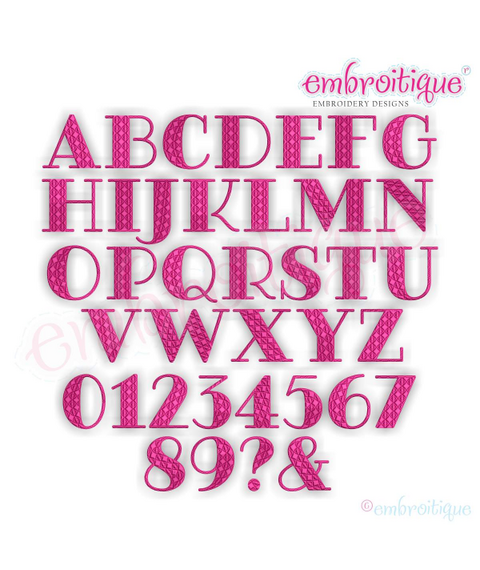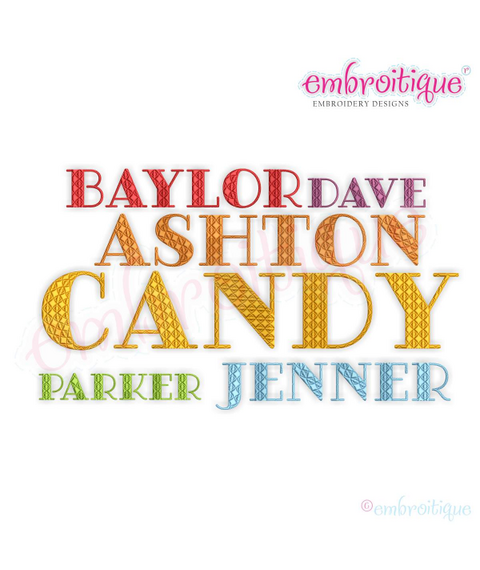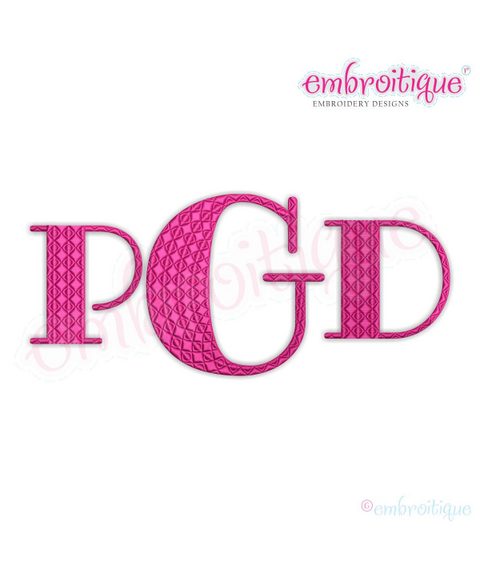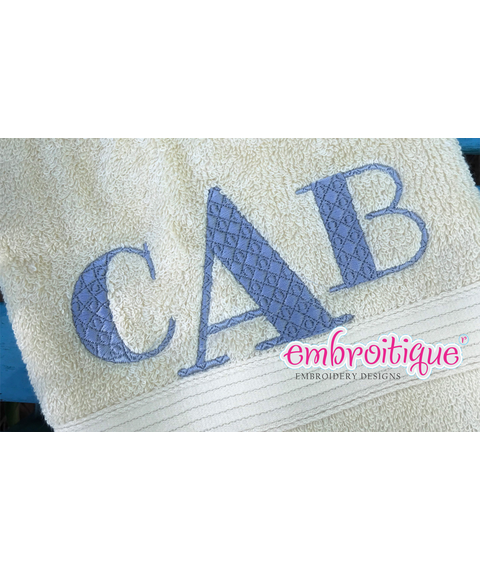
Garner Embroitique Exclusive Patterened Fill Stitch Block Monogram Font
what isn't there to love about this stunning EXCLUSIVE embroidery set? A beautiful patterned fill stitch that is just perfect for blankets or towels, but would be wonderful on any project.
A-Z 0-9 &? included